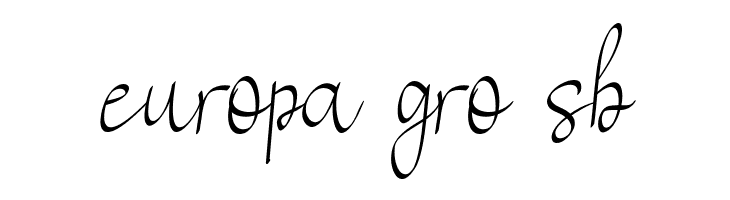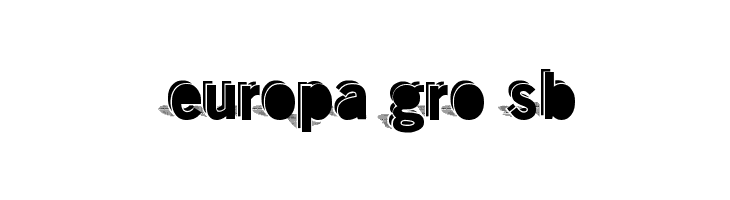
A bold, explosive display font with a splattered, chaotic design.
A bold, playful font with rounded, hand-drawn characters.
A bold, playful slab serif with thick, uniform strokes and a slightly rounded finish.
A playful set of cartoonish face icons within squares.
A tall, narrow, hand-drawn font with a whimsical and artistic style.
A playful, bold, and hand-drawn style font with a whimsical feel.
A playful, bold, and hand-drawn style font with rounded strokes.
A decorative font filled with stars, offering a playful and whimsical style.
A bold, dynamic handwritten font with expressive strokes and playful curves.
A playful and elegant script font with flowing cursive letterforms.
A bold, expressive brush-style font with dynamic, textured strokes.
A classic serif font with elegant strokes and a modern twist.
Bold, retro decorative font.
A distressed serif font with a textured, weathered appearance.
A whimsical, hand-drawn style font with bold, irregular strokes.
A playful, handwritten-style font with a friendly and informal appearance.
A bold, playful font with a hand-drawn aesthetic and high contrast.
A bold, playful font with a retro, psychedelic style.
A playful and whimsical font with bold, hand-drawn letterforms.
A bold, brush-style font with dynamic, hand-painted strokes.
A bold, brush-style font with an energetic, street-art vibe.
A bold, playful handwritten font with rounded strokes and a casual style.